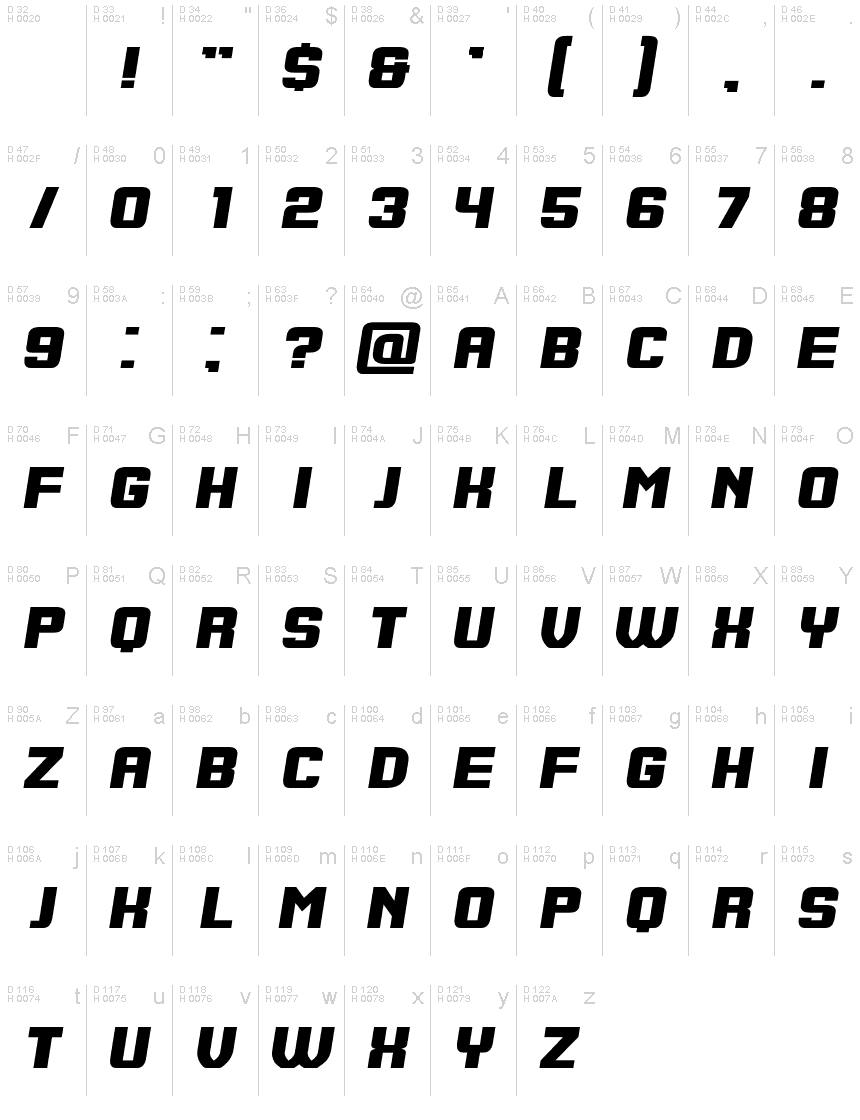
Johana Italic
Introducing Johana Italic, a bold and wide sans serif font designed by Vladimir Nikolic. This modern and stylish font is perfect for any project, from creating eye-catching logos to crafting beautiful web designs. With its distinct look and feel, Johana Italic will add a unique touch to your work.